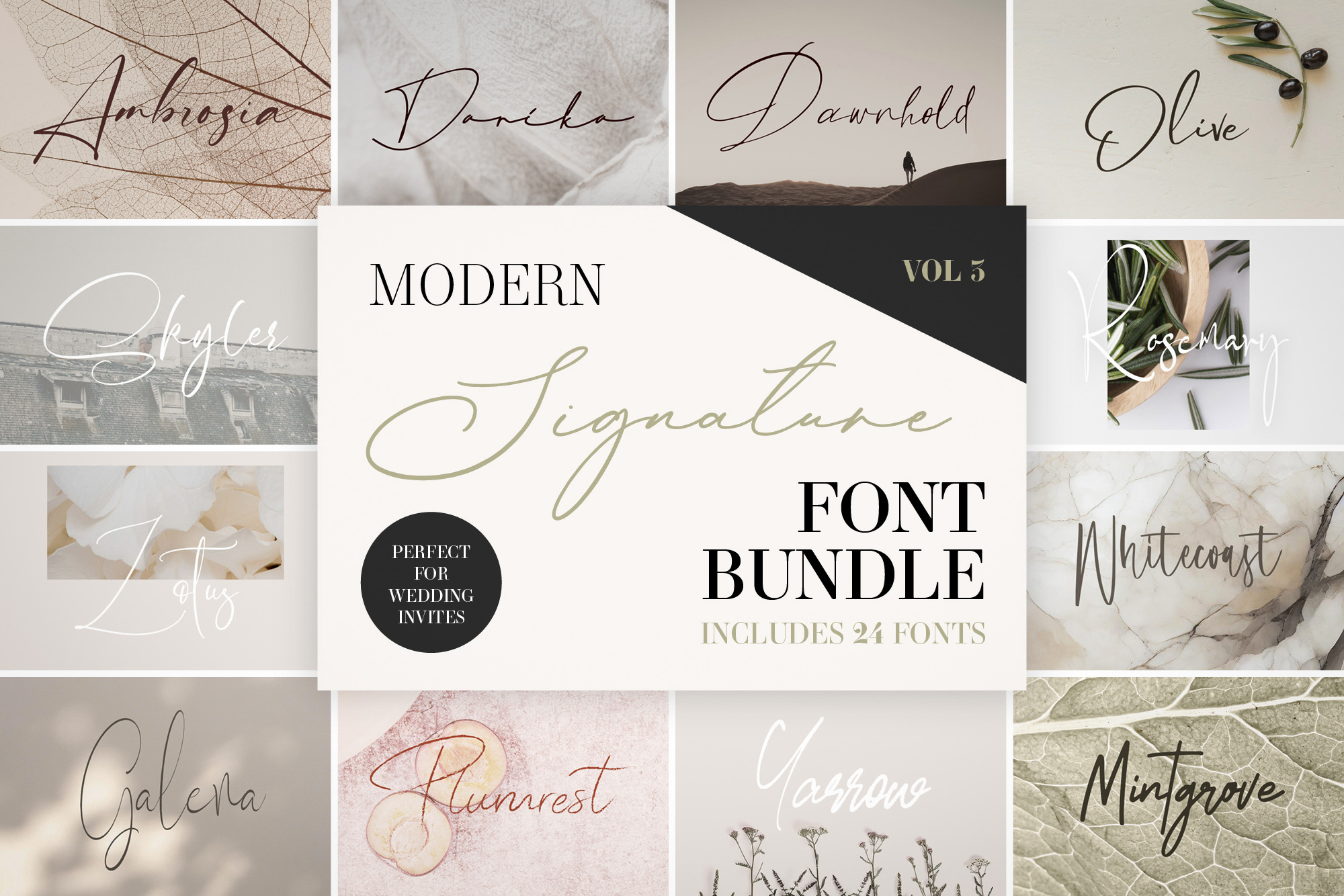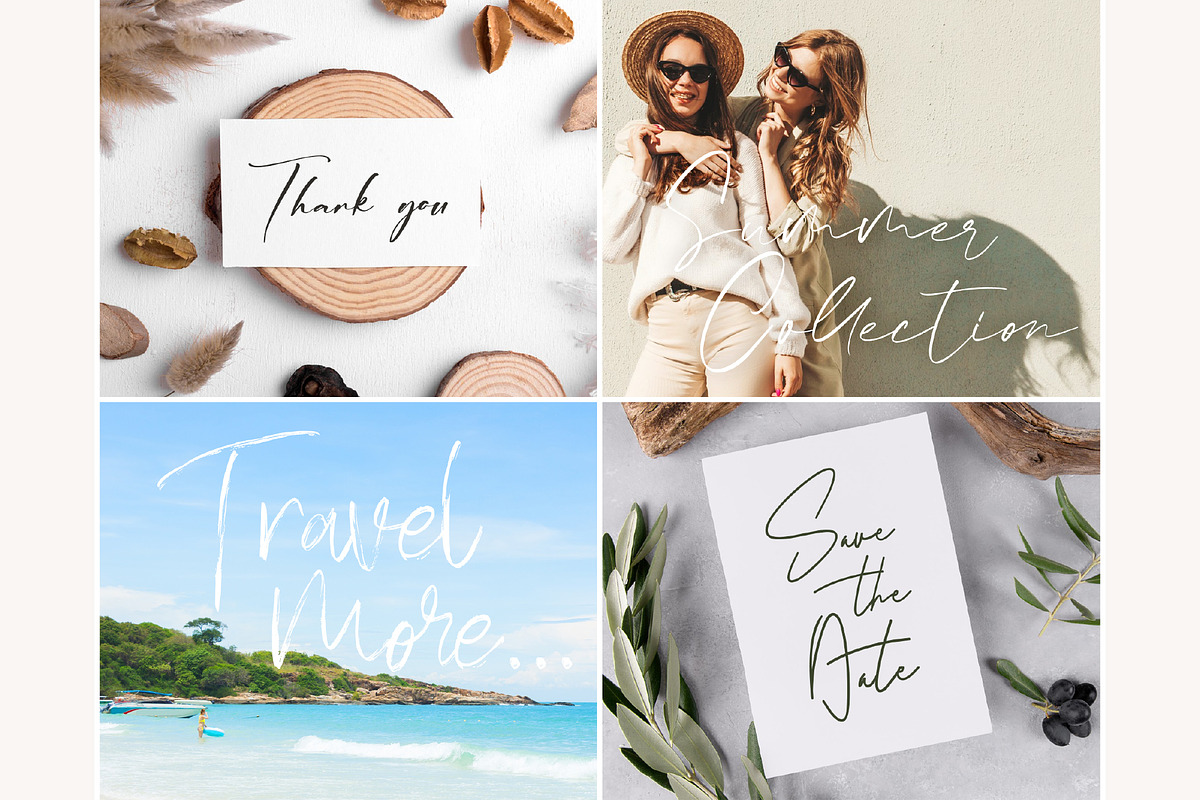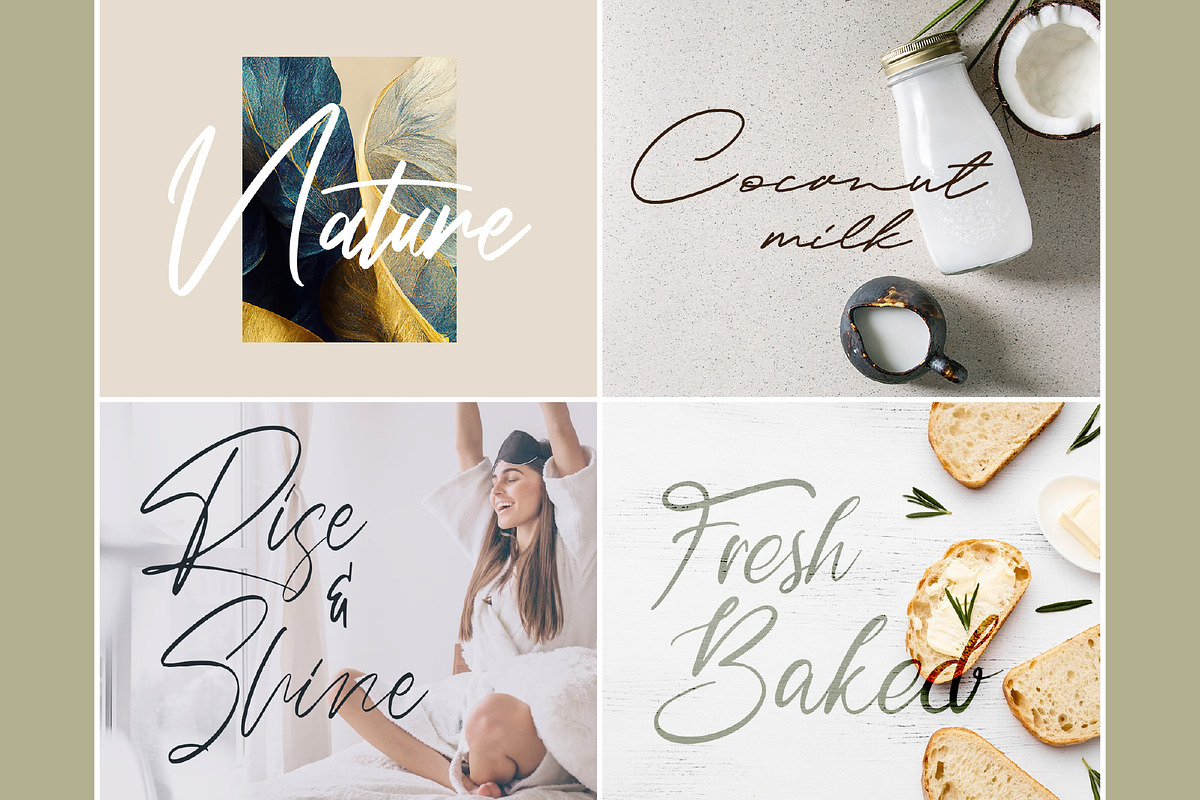
Modern Signature Font Bundle Vol 3
This fantastic value bundle consists of 24 fonts, each carefully crafted to give your projects a unique look and feel. Perfectly suited for stationery, logo design, typography quotes and editorial graphic design.